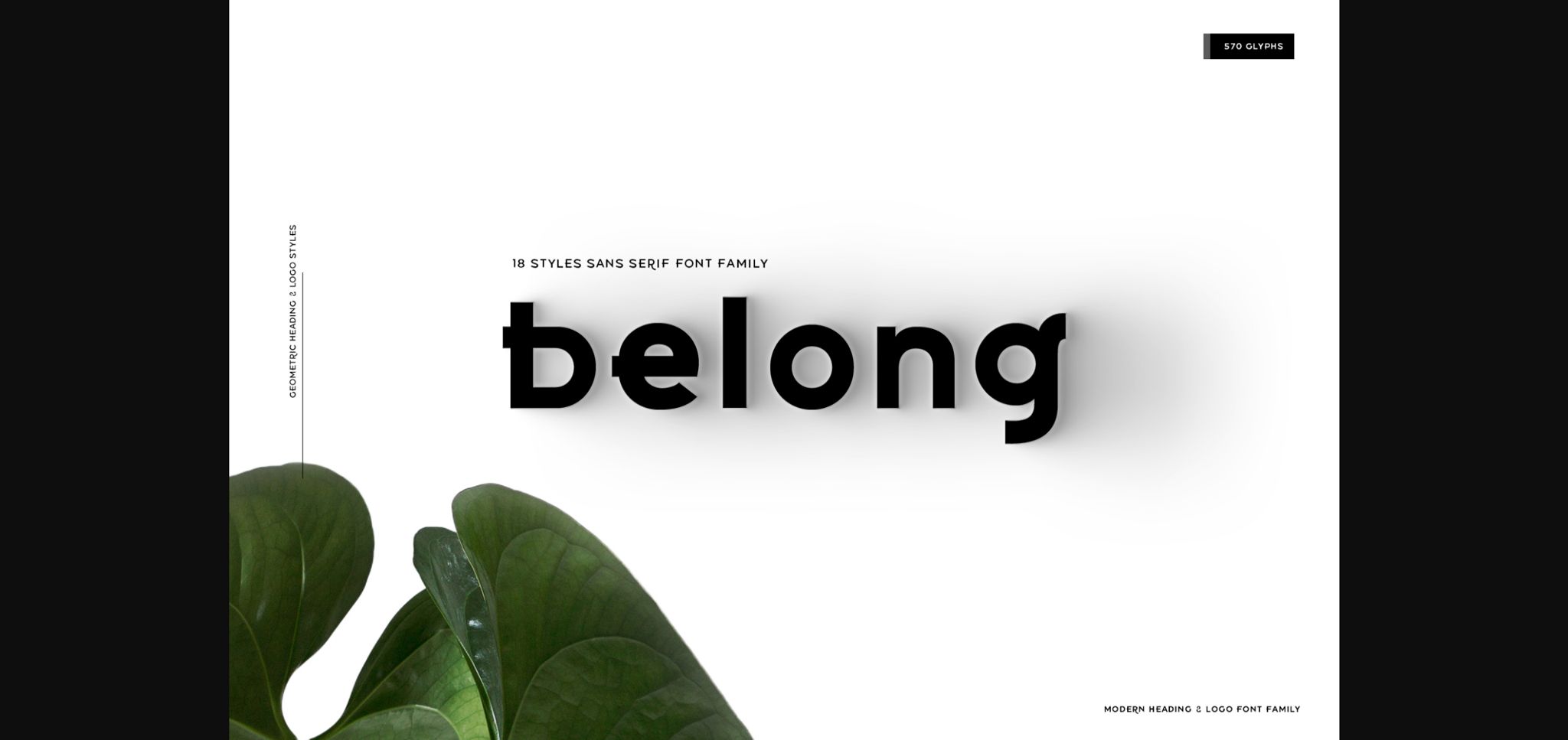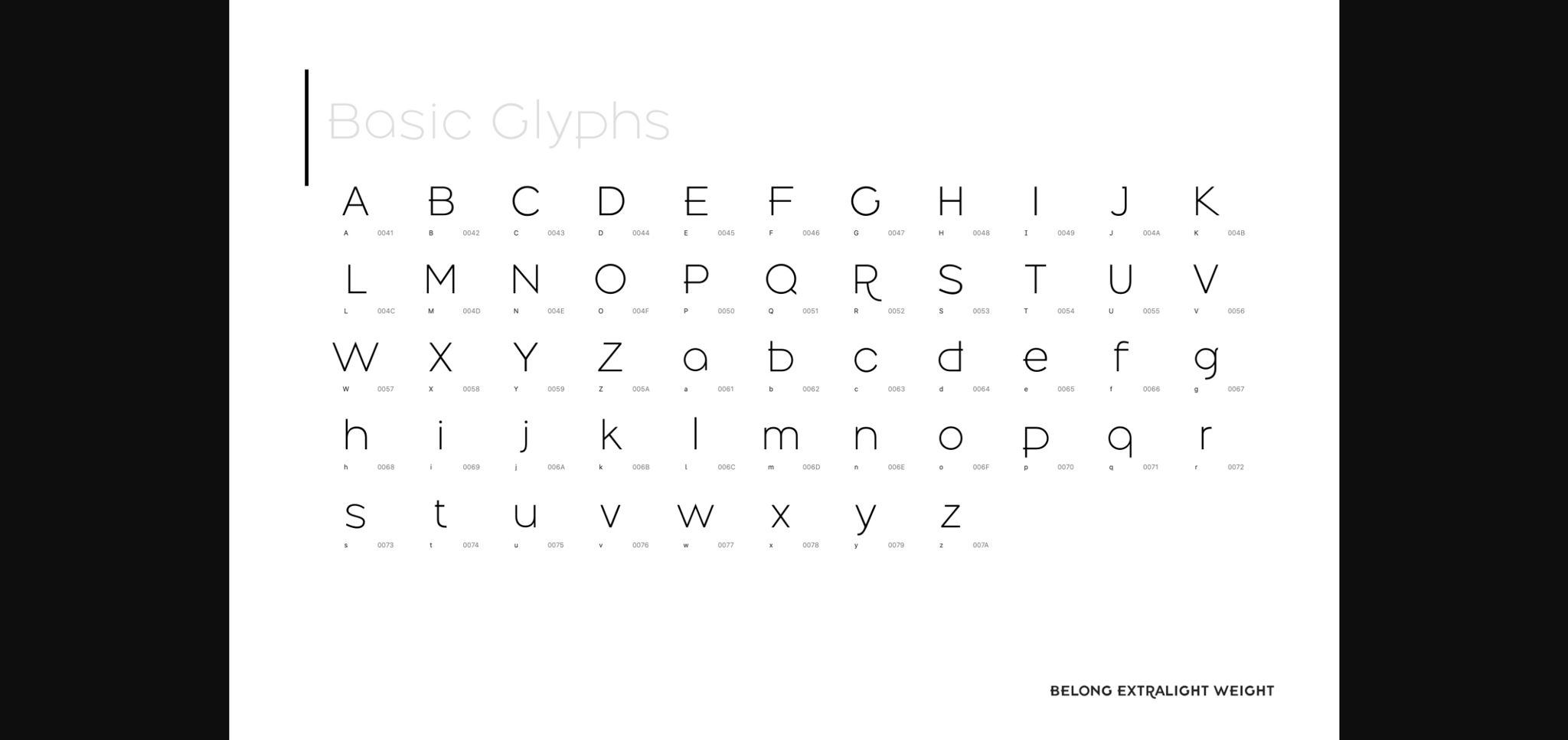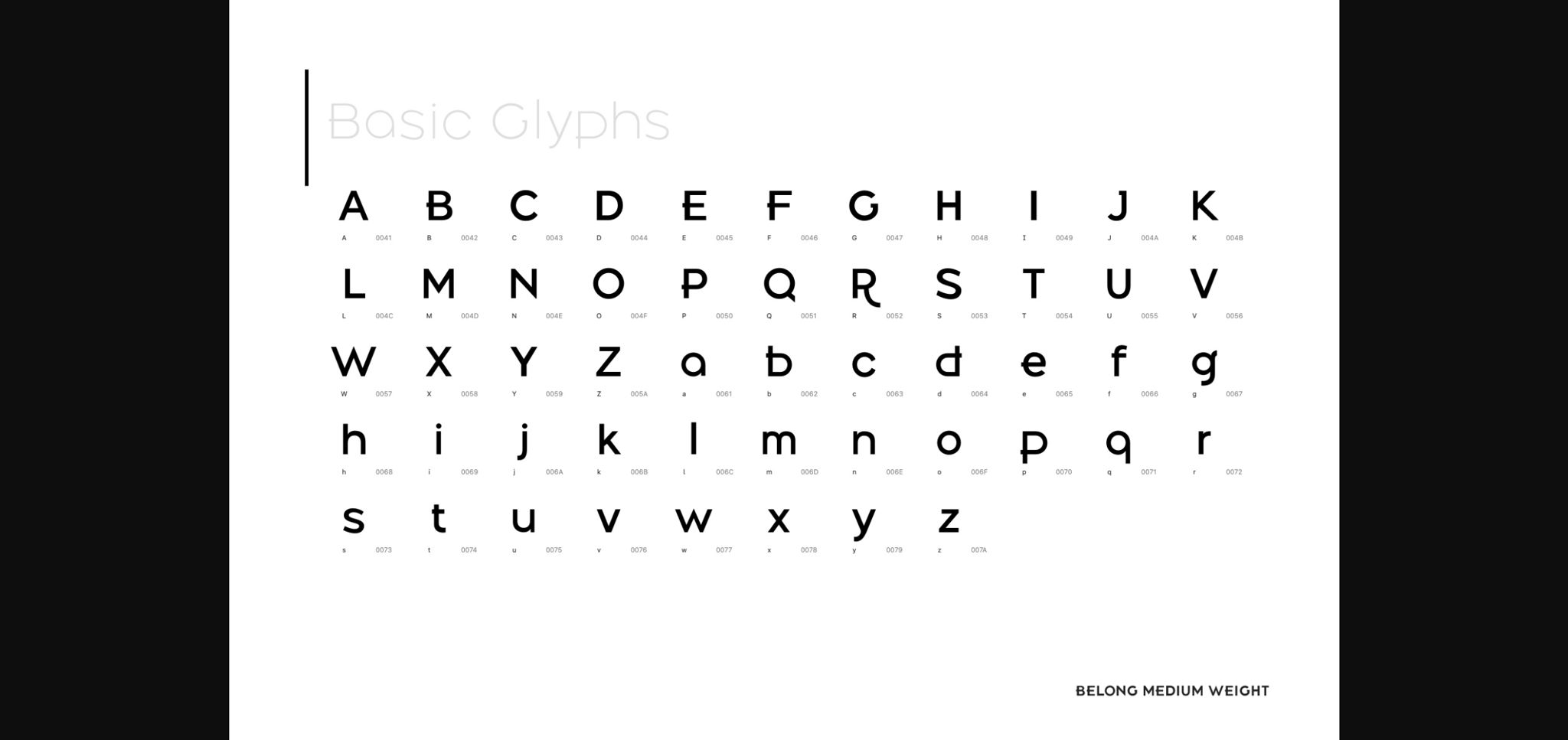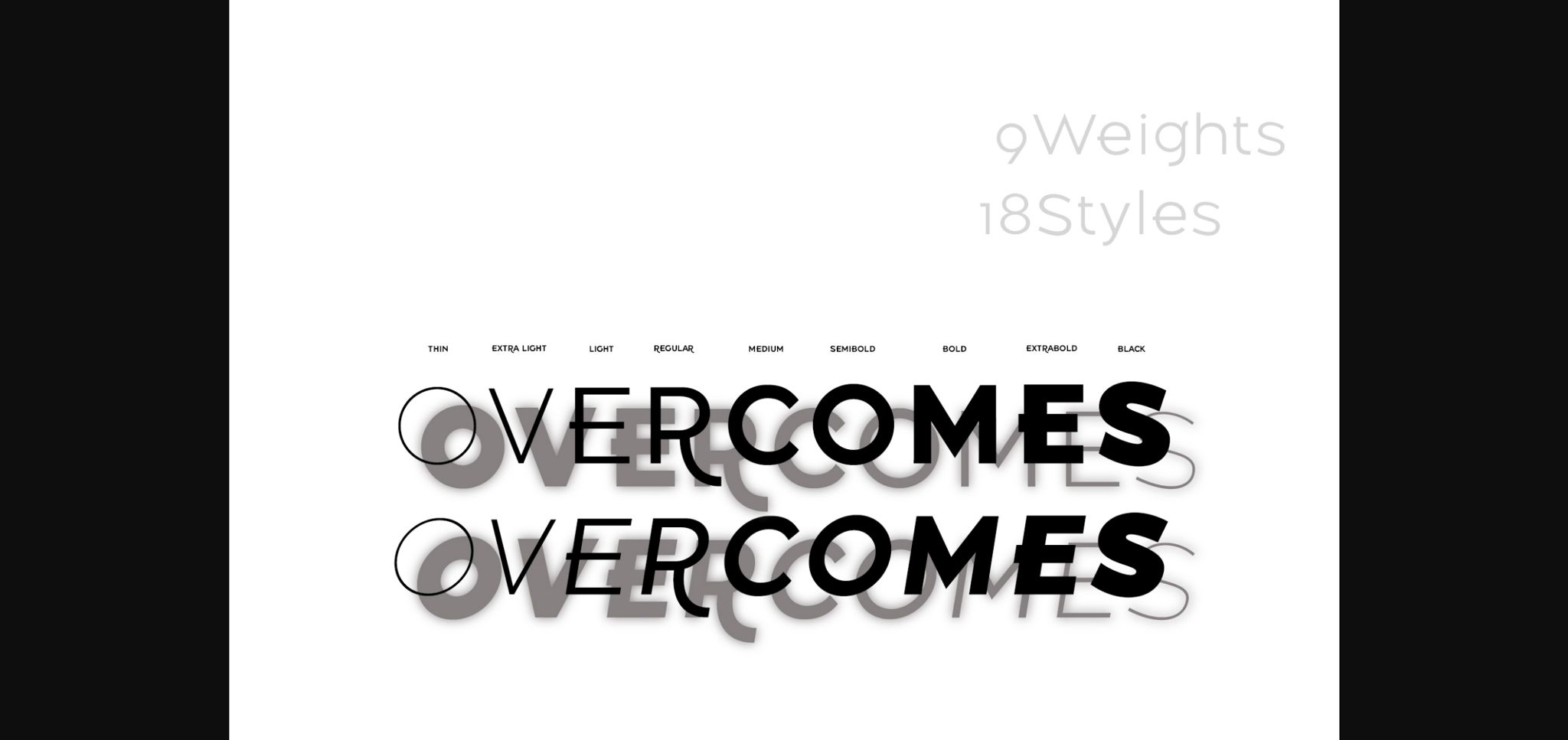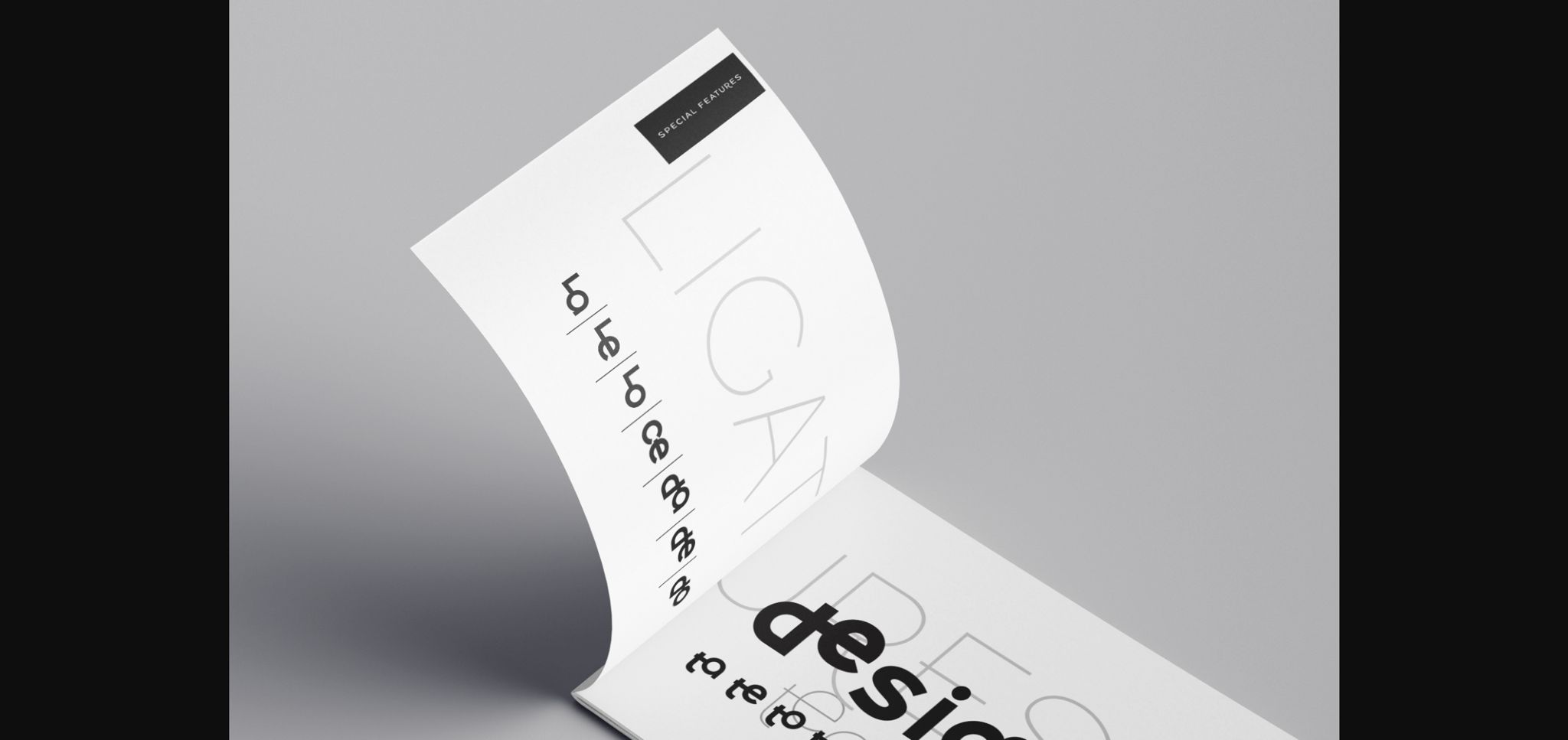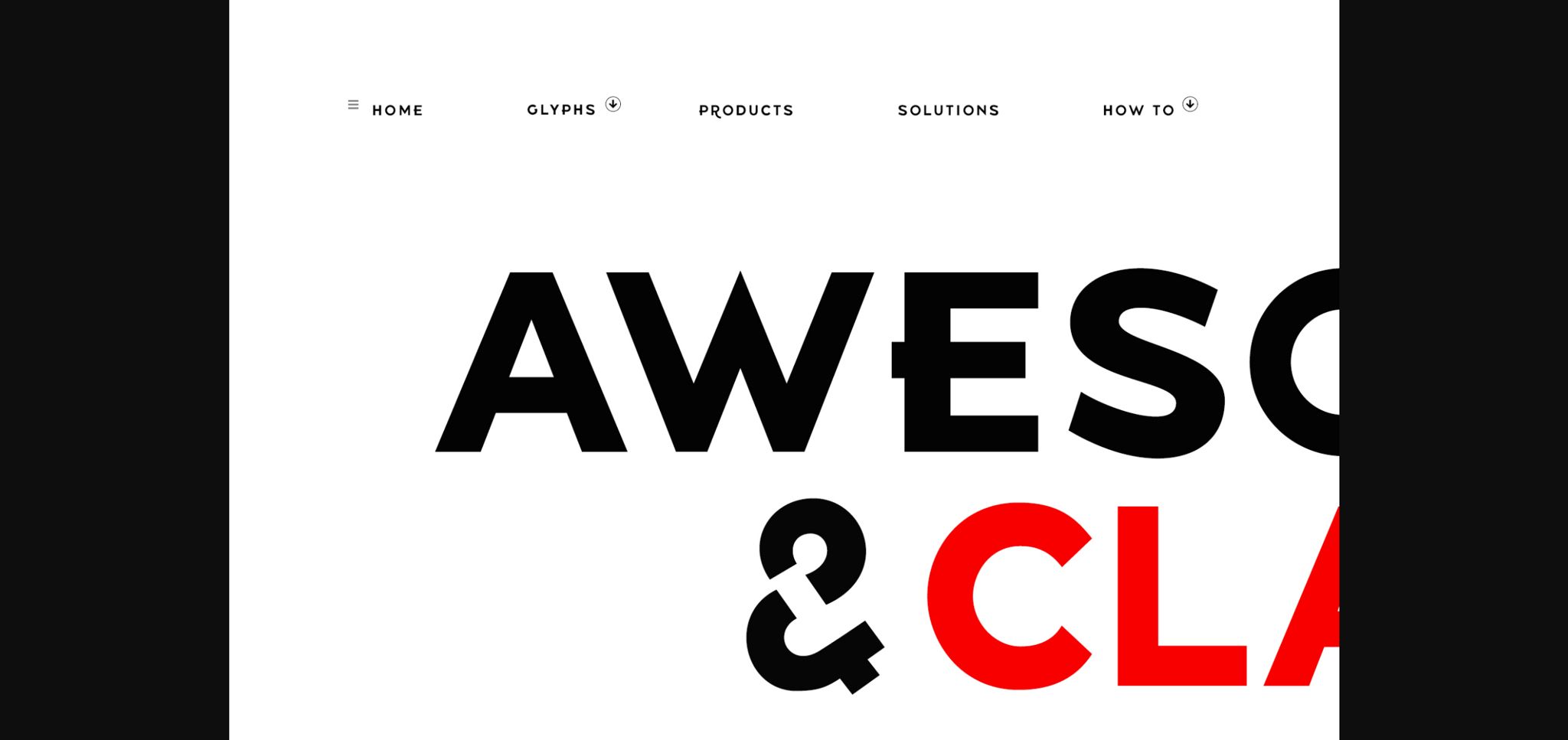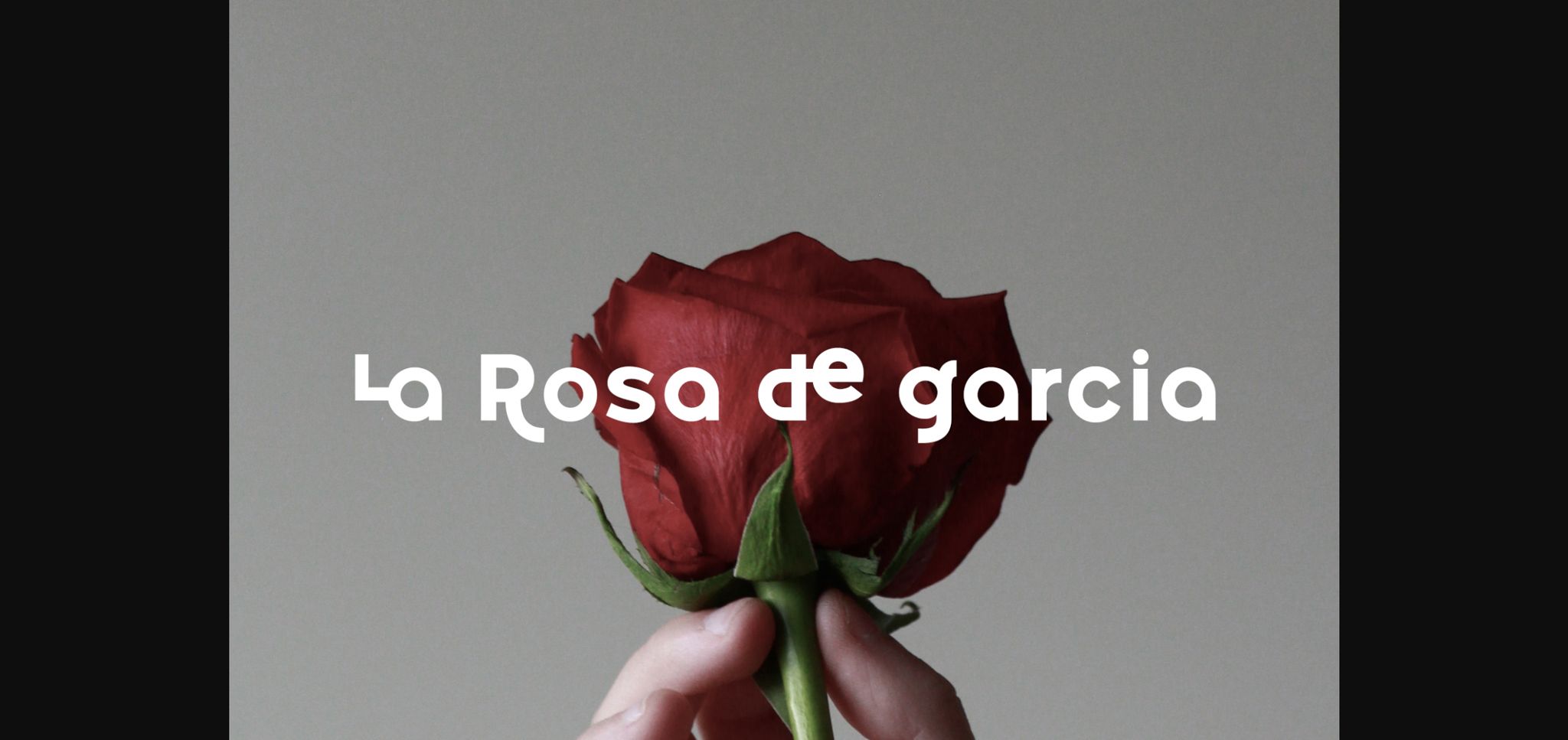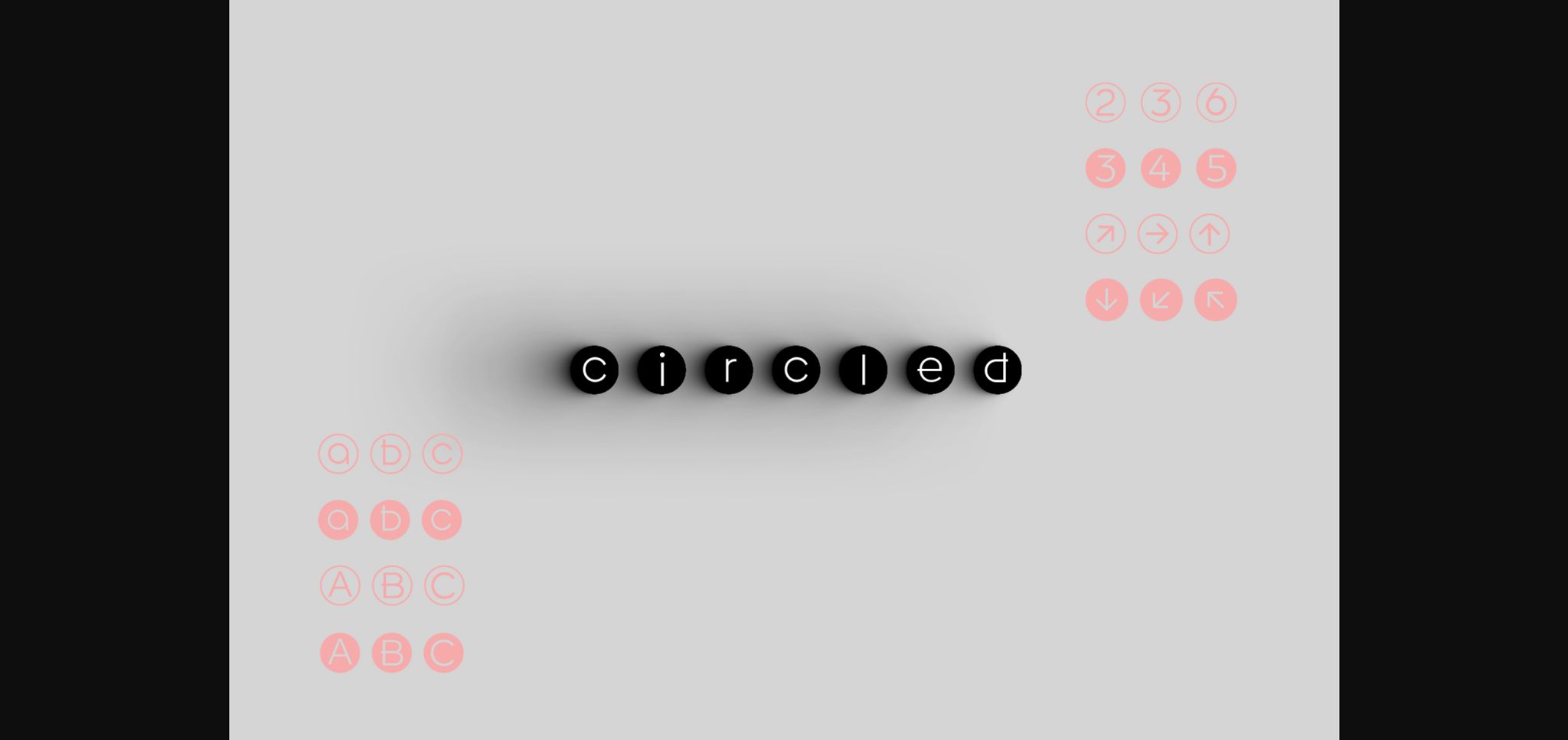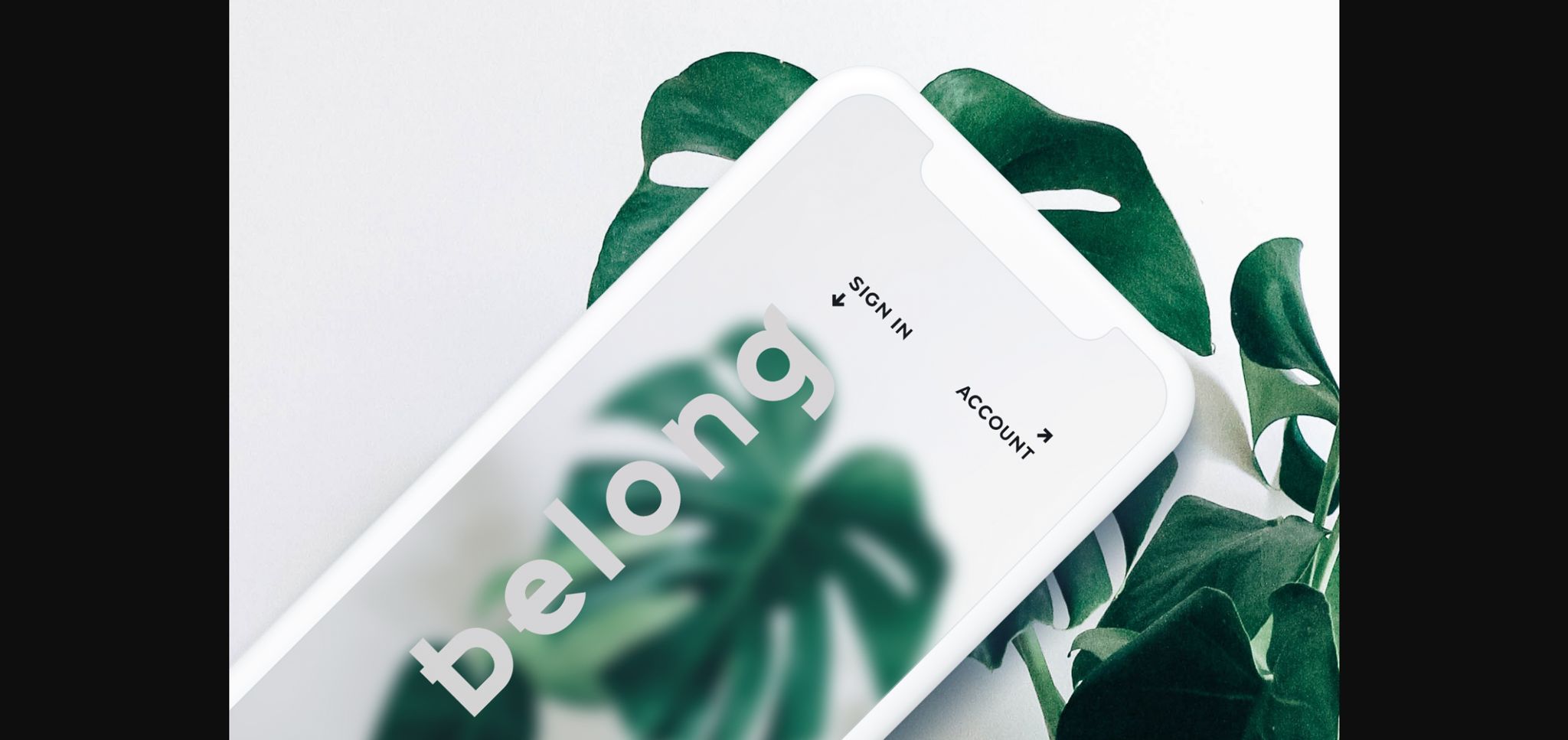
HomeSans Serif FontsBelong Font Sans Serif Fonts Belong Font FacebookXPinterestWhatsApp 1 of 11 ... Belong Font Poster 2... Belong Font Poster 3... Belong Font Poster 4... Belong Font Poster 5... Belong Font Poster 6... Belong Font Poster 7... Belong Font Poster 8... Belong Font Poster 9... Belong Font Poster 10... Belong Font Poster 11... About Belong Font Belong simplifies elegance into one truly outstanding sans serif font. With its neat and beautiful arrangement of letters, this typeface will look outstanding in both formal and non-formal designs. DOWNLOAD NOW People also explored Rosa Signature Font Another Font Airin Font United Scripts Font Begaters Font Quantum Ludhovicf Extra Light Font Birthday Font Stamp 328 0 TagsBelongBelong Font Previous articleRogler FontNext articleKalyant Font LEAVE A REPLY Cancel reply Comment: Please enter your comment! Name:* Please enter your name here Email:* You have entered an incorrect email address! Please enter your email address here Website: Save my name, email, and website in this browser for the next time I comment. Personal Use Free Arabella Script Personal Use Free Read more about this font Kitchen Blue Personal Use Free Read more about this font Lemon Milk Font Personal Use Free Read more about this font Heart Personal Use Free Read more about this font BLOG Using Fonts in Digital Marketing: Tips to Strengthen Your Brand Identity In the realm of digital marketing, every visual element plays a crucial role in shaping a brand's identity, and fonts are no exception. The... Top 10 Handwritten Fonts That Elevate Your Designs Top 7 Google Fonts Alternatives for Faster and Privacy-Friendly Web Design (2025) How to Cut Any Font on Cricut: Convert a Font to SVG (Free)